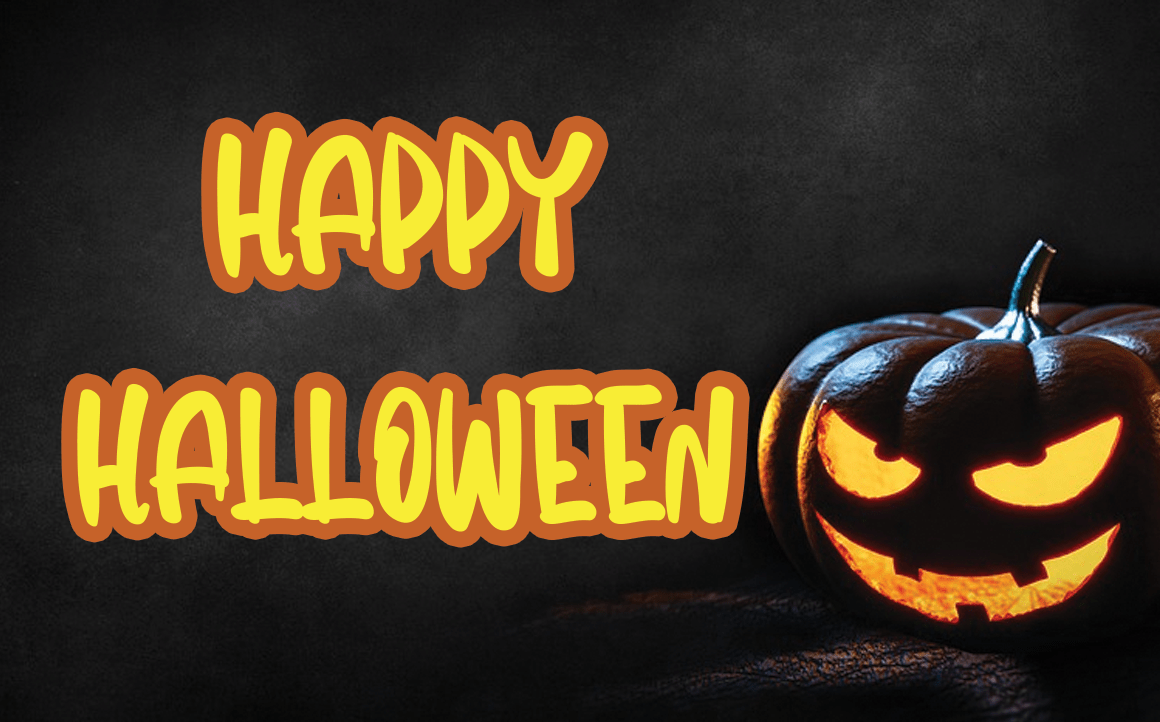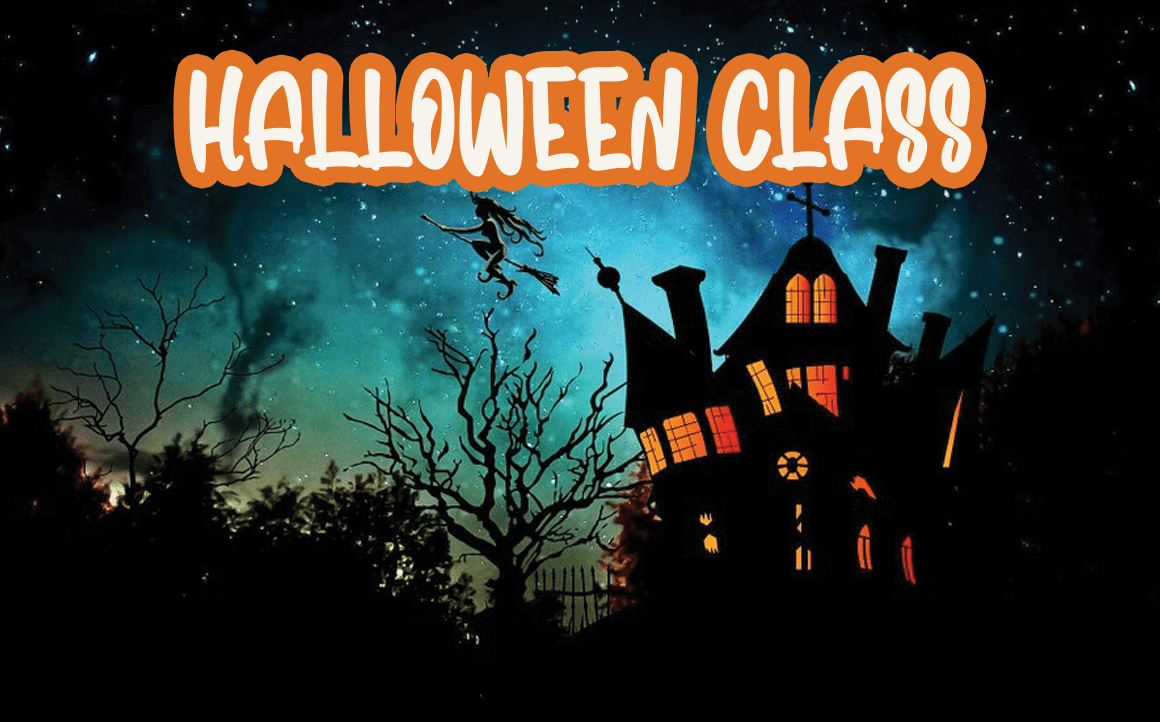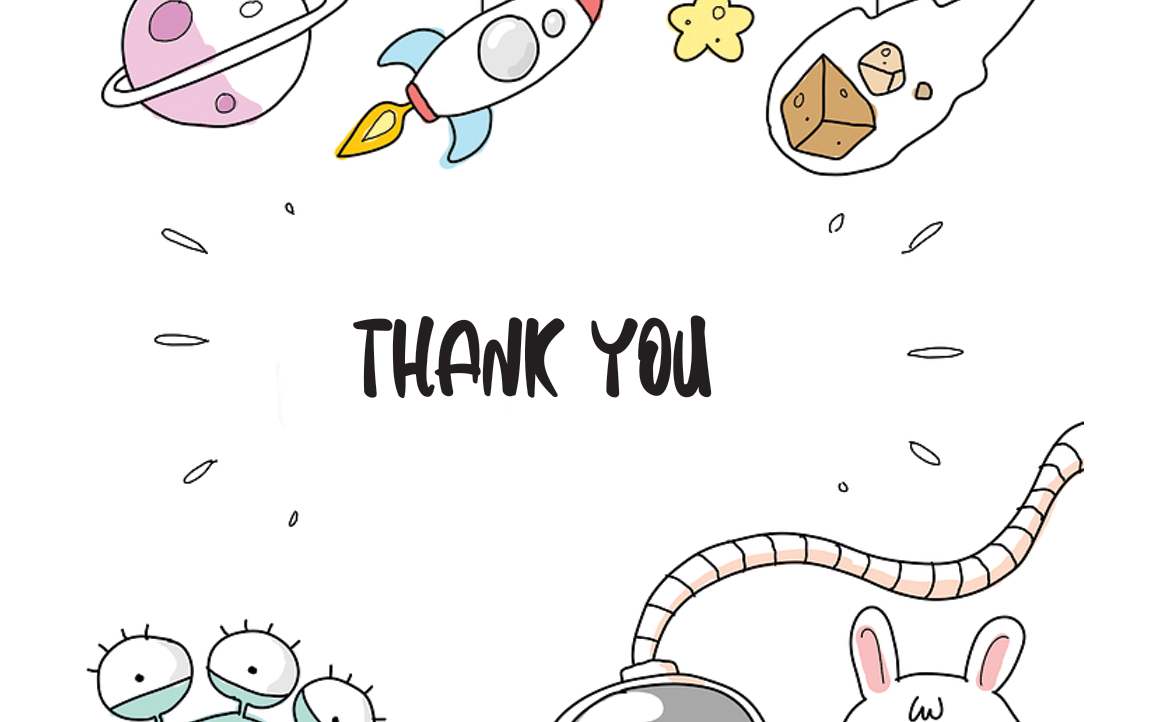
Halloween Teacher Font
Halloween Teacher Display Font
It’s a unique, fun and friendly handwritten font. Whether you’re looking for a font for Instagram or a calligraphy script for a DIY project, this font will turn any creative idea into a true work of art!